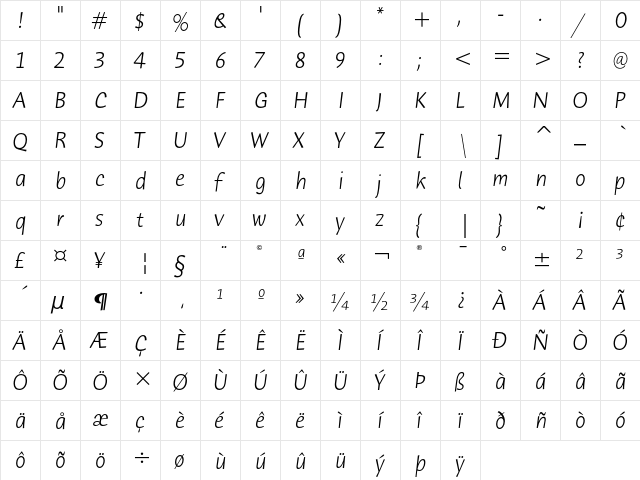
Humana Sans ITC Light Italic Font Preview
Design Context for Humana Sans ITC Typeface
Humana Sans ITC takes a measured approach to typography — its balanced proportions and neutral character make it a reliable workhorse for both digital and print work. Its italic angle brings a sense of urgency and motion to the letterforms. Its slender proportions lend an understated elegance to any composition.
Pro Tip: Try Humana Sans ITC for annotation and caption copy alongside an upright companion — the contrast in angle creates a dynamic but ordered typographic system.